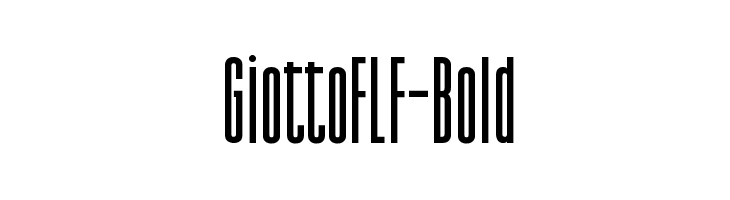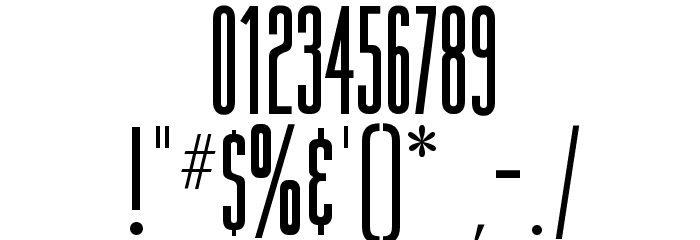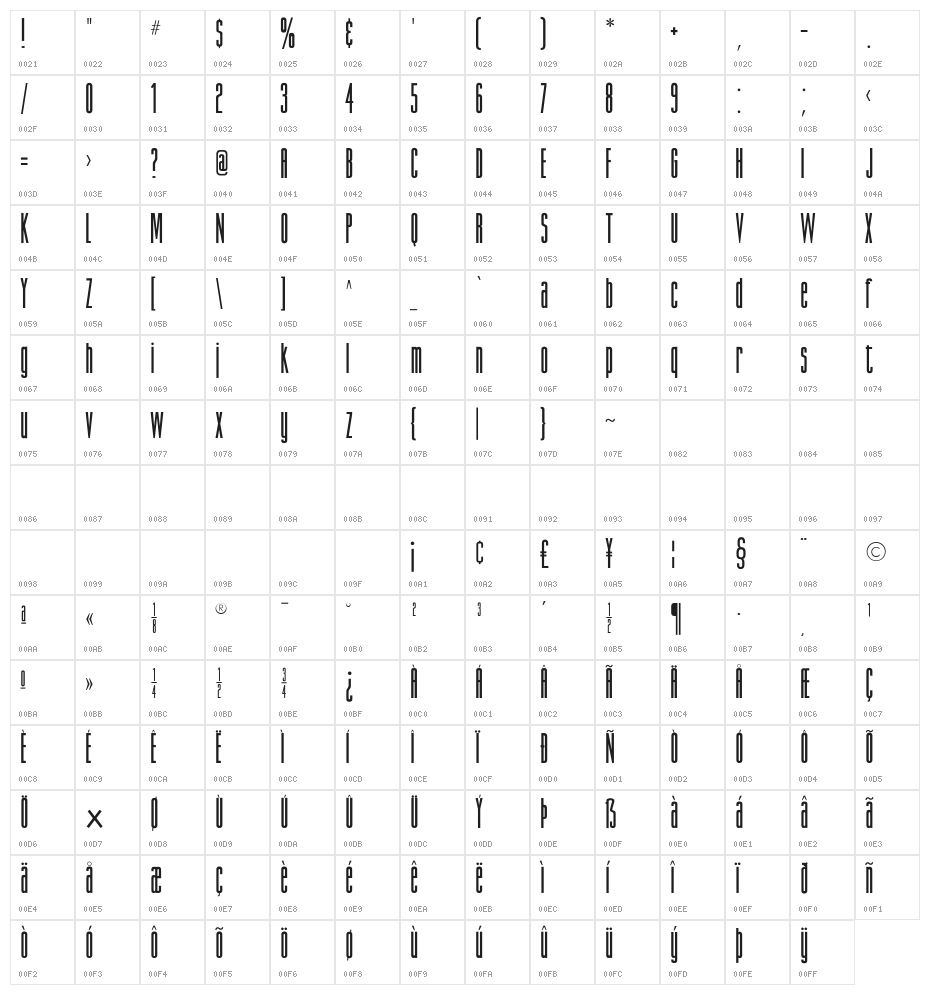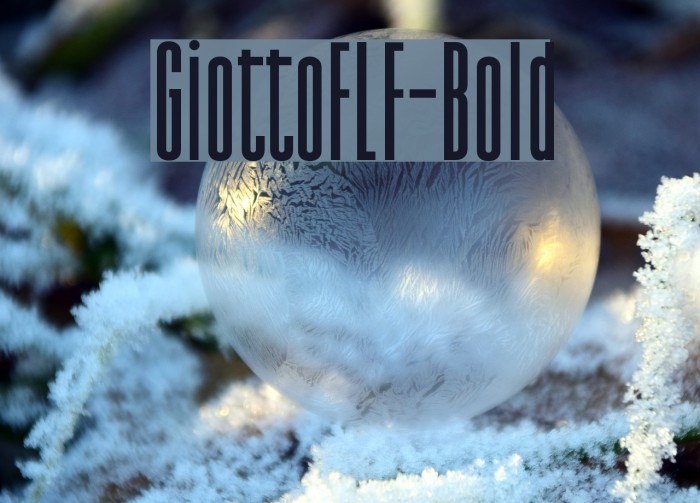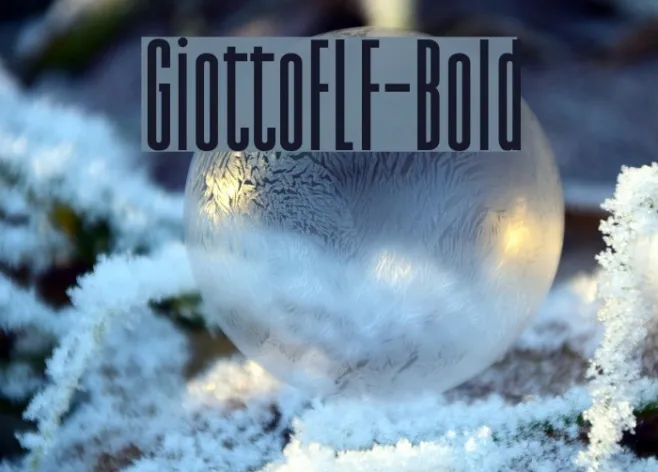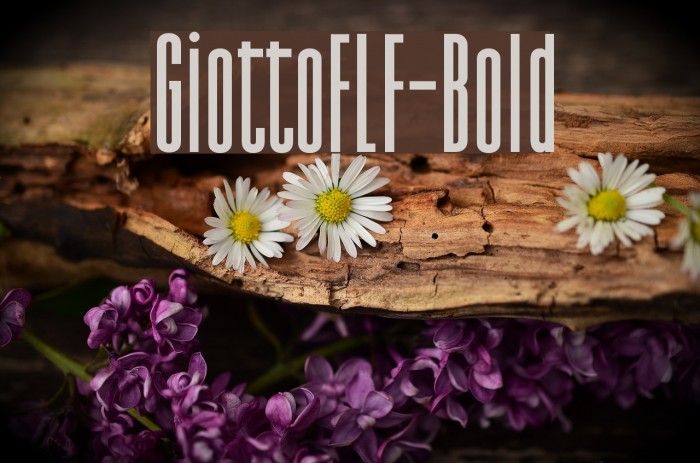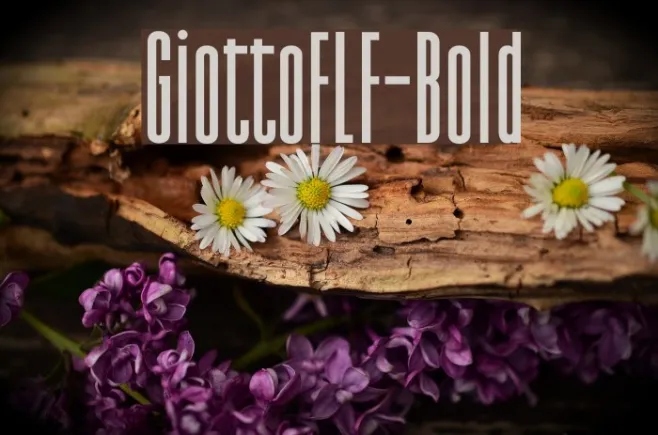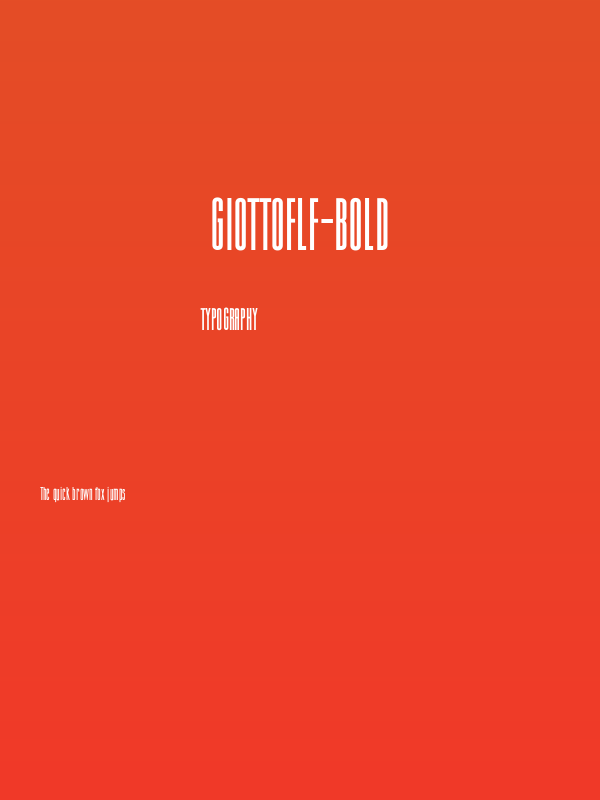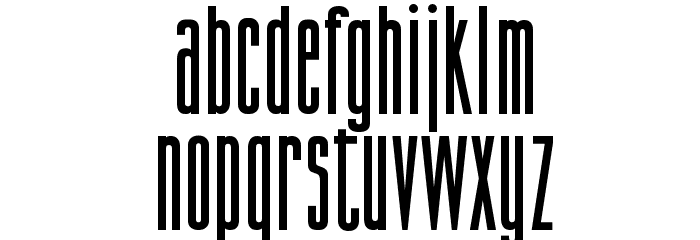
GiottoFLF-Bold Font
GiottoFLF-Bold Description
This typeface features a tall, narrow design with a strong vertical emphasis, making it highly suitable for impactful headlines and titles. The characters are uniformly bold, with a consistent stroke width that gives the font a modern and sleek appearance. The uppercase and lowercase letters maintain a cohesive style, with the lowercase letters being slightly more rounded. The numbers are clear and legible, matching the overall aesthetic of the alphabet. Special characters are included, maintaining the same bold and narrow characteristics, ensuring versatility across various applications.
| Proposed Projects | This font is perfect for magazine covers, posters, and branding materials where a strong visual impact is desired. |